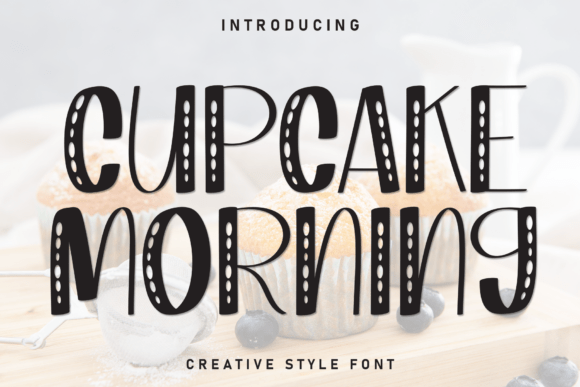
Cupcake Morning: A Playful Display Font for Marketers
As a content creator who builds social campaigns day in, day out, I know the difference between a graphic that gets saved and one that gets scrolled past often comes down to typography. Cupcake Morning is the kind of creative font that brings immediate warmth and personality to a layout, making it feel less like another template and more like a genuine brand moment. It’s a display font with a friendly, hand‑brushed feel—rounded letterforms, bouncy baselines, and a soft, approachable energy that fits perfectly into the modern marketing toolkit.
When you work across Instagram posts, Pinterest pins, YouTube thumbnails, reels covers, and email headers, you need a font that acts as a visual anchor. Cupcake Morning delivers exactly that. Its personality is upbeat yet not loud, sweet without feeling juvenile, and instantly readable at headline sizes. That balance makes it an incredibly versatile asset for designers who want their messaging to feel human and inviting.
Standing Out in the Feed with Cupcake Morning
Every social media manager knows the pressure of that first half‑second of scrolling. A viewer’s thumb moves fast, and if your hero text doesn’t grab attention, the rest of the design doesn’t matter. Cupcake Morning’s organic curves and slightly irregular letter shapes create a natural focal point that breaks the monotony of polished, geometric sans‑serif headlines that flood every feed. Against a clean product photo or a pastel background, this typeface acts like a smile—it’s disarming and draws the eye right to the key message.
For a sale announcement on Instagram Stories, you could set “40% off everything sweet” in Cupcake Morning at a generous size, then let the rest of the visual stay minimal. The font does the heavy lifting. Similarly, on a YouTube thumbnail for a lifestyle vlog, pairing Cupcake Morning with a bold, slightly condensed sans‑serif for secondary text creates contrast that improves both readability and click‑through rates. It’s not just about prettiness—this creative font builds a visual hierarchy that guides the viewer through your content in the right order.
Crafting a Visual Hierarchy That Converts
Good marketing design isn’t decoration; it’s communication. Cupcake Morning helps you emphasise the most important words in your graphic without needing multiple font weights or garish effects. Because its letterforms have a natural, flowing rhythm, a headline like “Morning Routine Boost” reads as one cohesive idea, yet the slight variation in stroke thickness and letter height gives each word a unique visual weight. That quality makes it excellent for short, punchy messages: limited‑time offers, product teasers, inspirational quote graphics, or branded call‑outs inside a blog post.
When I use Cupcake Morning as the primary headline for a webinar banner, I immediately notice how the font sets a tone that’s eager and bright. It communicates reliability through friendliness, not corporate stiffness. Below the main title, I’ll place a smaller, clean sans‑serif line for the date and time. The pairing creates a clear information flow: the playful display font says “you’ll enjoy this”, the functional type says “here’s when to show up”. That gentle guidance reduces cognitive load and makes the creative more effective.
Perfect for Short, Punchy Messages
Not every font works well under the 10‑word limit that often defines social media success. Cupcake Morning thrives in tight spaces. A two‑word callout like “New Drop” or “Spring Fling” set on a reels cover retains full character, and the charm doesn’t get lost even on a tiny preview thumbnail. That’s critical because platforms like Facebook and YouTube often display graphics at less than 150 pixels wide in a browser sidebar. At those sizes, overly delicate script fonts usually collapse into nonsense, but Cupcake Morning’s relatively generous x‑height and clean strokes hold up better than many handwritten typefaces.
For email headers inside a promotional newsletter, running “Fresh for You” in Cupcake Morning at around 40px gives just enough personality to signal a friendly brand without sacrificing legibility on mobile. Always test your designs on a real phone screen—what looks sweet on a 27‑inch monitor can turn into a smear on a 6‑inch screen. With Cupcake Morning, keeping the font size above 24px and maintaining strong contrast against the background ensures the message stays crisp, even when a subscriber scrolls quickly through their inbox.
Digital Campaigns Where Cupcake Morning Shines
I’ve seen this display font elevate several kinds of campaigns. For a seasonal promotion around Mother’s Day, a boutique florist used “For The Best Mom” in Cupcake Morning across Instagram carousels and Facebook ads. The light, uplifting letterforms complemented the soft floral imagery perfectly, and the engagement rate jumped because the visual felt less like a hard sell and more like a celebration. In an online shop promotion, a stationery brand set their discount code inside a rounded badge with Cupcake Morning as the headline type—the playful, bakery‑like vibe reinforced the “handcrafted” brand identity and made the coupon feel special.
Product launch teasers also benefit from the subtle storytelling this font provides. A cosmetics brand dropped a teaser image with the words “Something Peachy Is Coming” floating over a blurred gradient. The typeface’s gentle curve whispered anticipation, while a harsher serif would have felt too formal for a fun launch. For a content series around personal branding, a coach used Cupcake Morning for a motivational quote graphic. The phrase “Own Your Morning” looked confident but warm—exactly the tone a personal brand needs to attract the right audience without shouting.